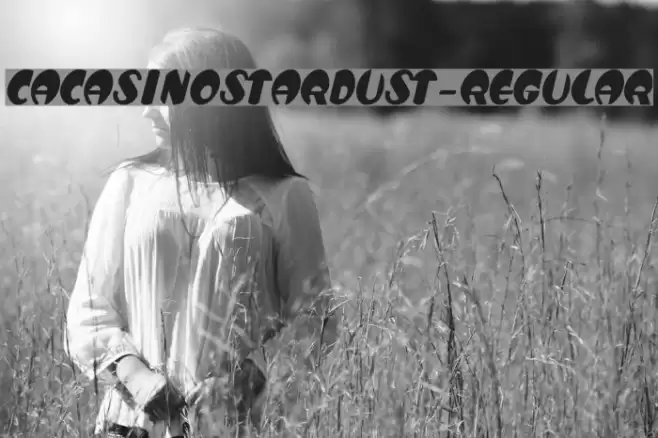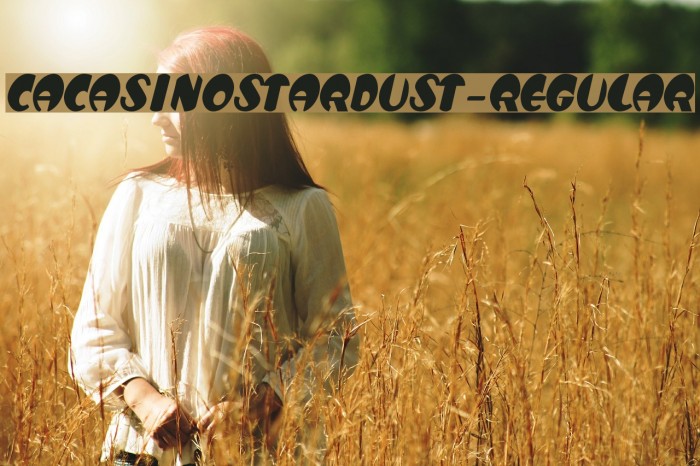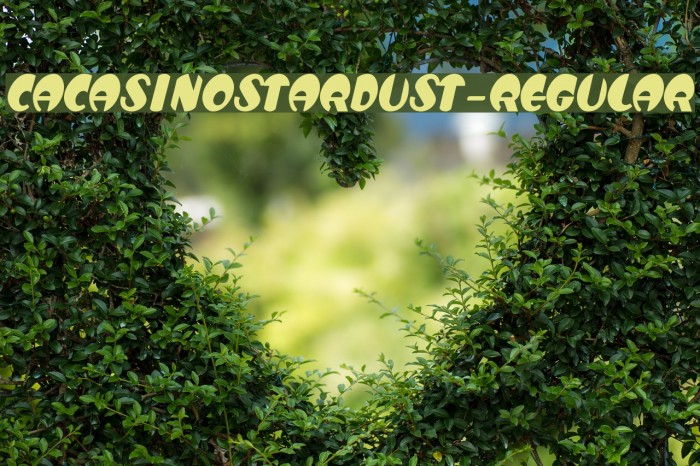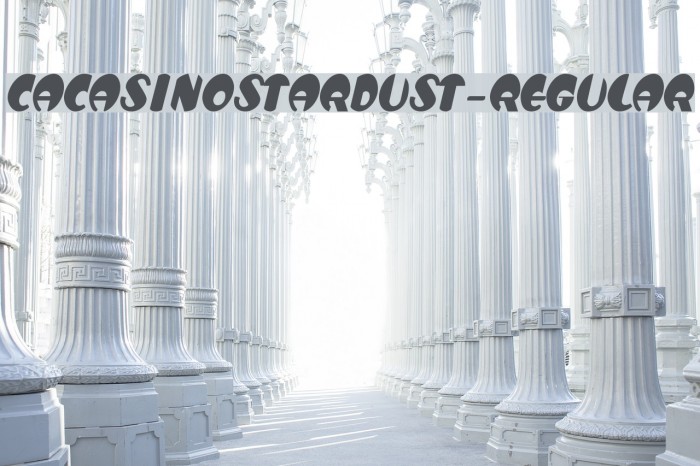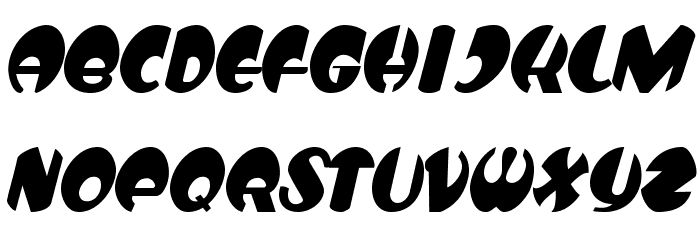
CACasinoStardust-Regular Font
CACasinoStardust-Regular Description
This font features a bold and dynamic style with a distinctive retro flair. The characters are designed with a unique combination of thick strokes and geometric shapes, creating a sense of movement and energy. The uppercase letters are particularly striking, with their bold curves and sharp angles, while the lowercase letters maintain a consistent style that complements the overall design. The font's playful and eye-catching appearance makes it ideal for projects that require a touch of vintage charm and boldness.
A bold, retro-inspired font with dynamic geometric shapes from Uncategorized fonts.
- Proposed Projects: Ideal for vintage-themed posters, retro branding, and eye-catching headlines.
- Overall Style: Vintage